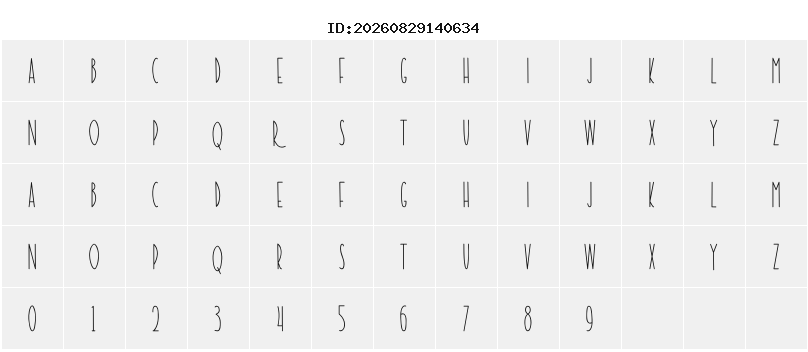
• Font Name: The Ramble Bold
• Designer: Alex Tomlinson
• Manufacturer: Skyhaven Fonts
About The Ramble Bold.otf
The Ramble Bold.otf is a modern, elegant sans-serif font designed for ultimate readability and visual harmony. Perfect for branding, headlines, web design, and print materials.